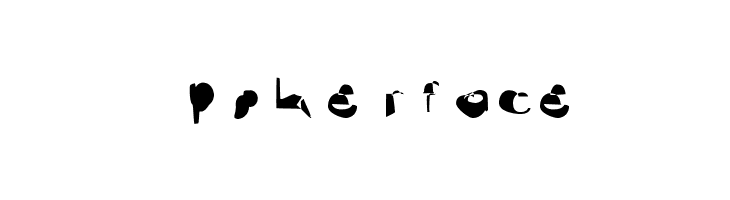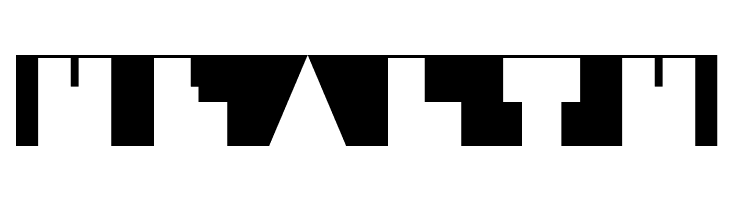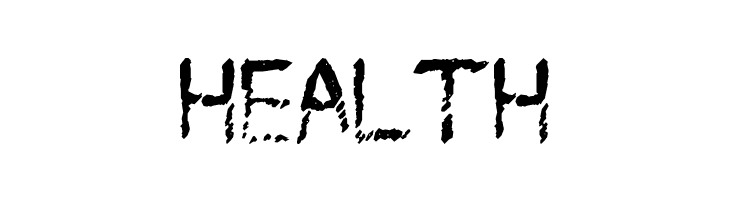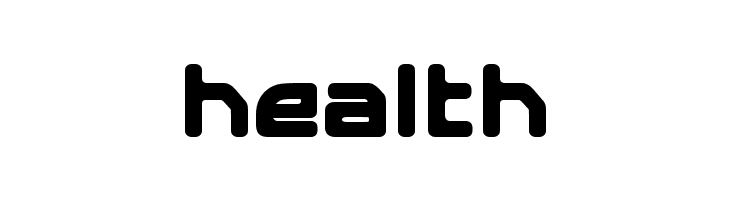
A playful, cartoon-like font with quirky, decorative characters.
A bold, geometric font with angular shapes and a modern, artistic style.
A bold, distressed font with a grunge, hand-drawn style.
A modern, geometric font with a sleek, futuristic design.
A fragmented and abstract font with chaotic, sharp letterforms.
A bold, geometric, and condensed font with a modern digital style.
A futuristic, digital font with rounded edges and geometric structure.
A modern, interconnected script font with a chain-like appearance.
A modern, elegant font with high contrast and italic slant.
A delicate, elegant script font with thin, flowing lines and graceful curves.